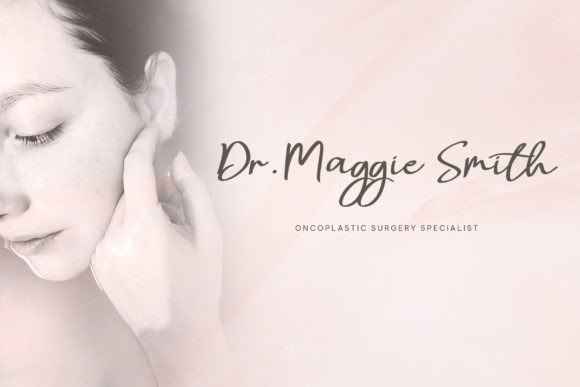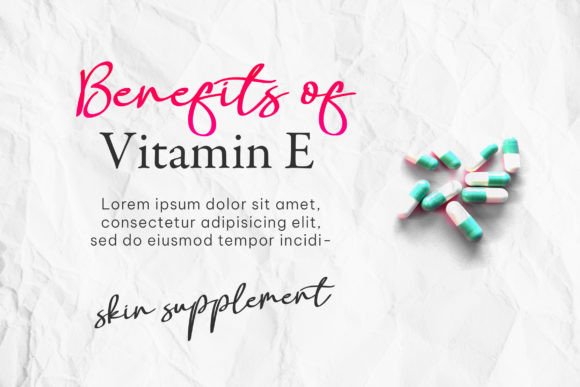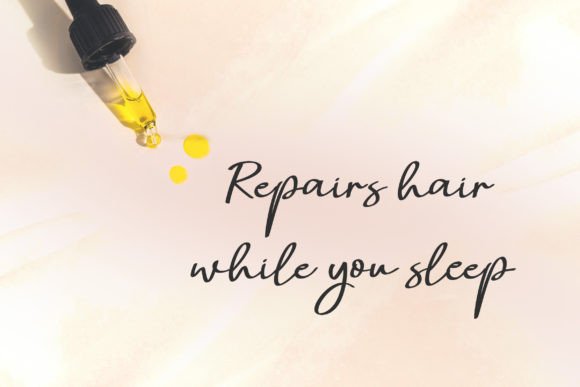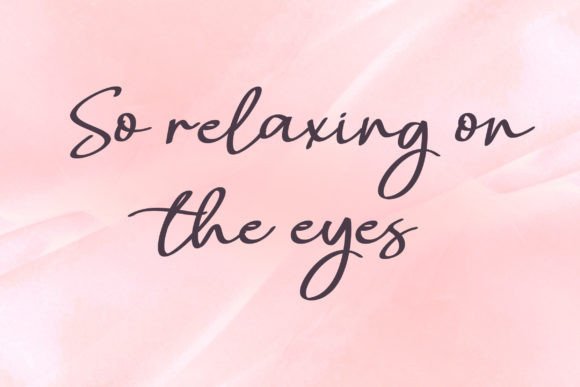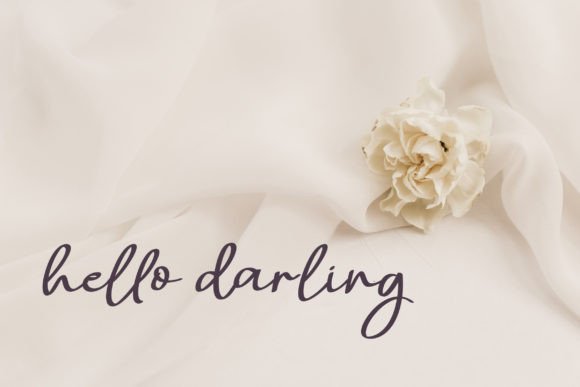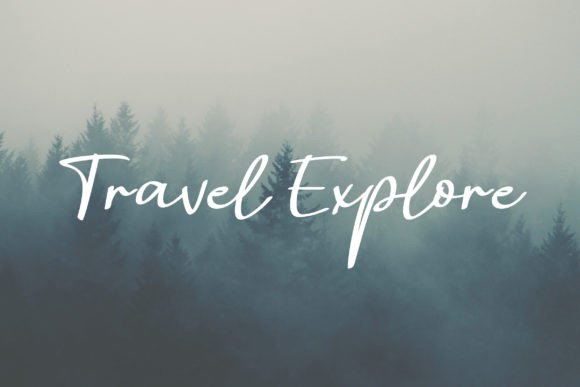
Discover the Timeless Charm of the Baby Smooth Font
Have you ever stumbled upon a design that sparks inspiration and sets your creative juices flowing? For many of us, it’s the perfect combination of style, elegance, and a dash of personality. One such design element that has captured the hearts of many is the Baby Smooth Font – a stunning, modern, and flowing handwritten script font that exudes sophistication and charm.
As a versatile font, Baby Smooth Font is designed to elevate a wide range of designs, from elegant invitations to modern logos and branding materials. Its beautiful and well-balanced characters make it an ideal choice for designers seeking to add a touch of uniqueness to their projects.
Whether you’re a seasoned designer or just starting out, the Baby Smooth Font is an invaluable asset to have in your creative toolkit. Its timeless style and versatility make it an excellent choice for any design project, ensuring that your creations stand out from the crowd and leave a lasting impression.
Baby Smooth Font Key Features
- Unique Characteristics: Features a smooth, rounded design with subtle curves and a friendly, approachable feel
Designer Review: Baby Smooth Font
First off, I’d say that the Baby Smooth Font has a unique charm to it ✨. The rounded edges and soft curves give it a friendly, approachable feel that’s perfect for kids’ brands or family-friendly products. It’s also surprisingly versatile, and I’ve seen it work well in both digital and print applications.
One of the things I appreciate about Baby Smooth is its legibility ✨. The font is clear and easy to read, even at small sizes, which is a must for any font intended for body text. The x-height is also well-balanced, making it easy on the eyes.
However, there are a few limitations to the Baby Smooth Font that I’d like to mention ⚠️.
- Lack of bold weights: While the regular weight is great for body text, it can be a bit too light for headings.
- No italics: This can make it difficult to create emphasis or add a touch of elegance to text.
- Not ideal for complex text: Due to its rounded edges, Baby Smooth can struggle with complex text layouts or dense paragraphs.
Overall, I think the Baby Smooth Font is a solid choice for designers who want a friendly, approachable font for kids’ brands or family-friendly products. While it may not be the best choice for complex text or high-end applications, it’s a great option for simpler designs where you want to convey a sense of warmth and approachability.
The Baby Smooth Font is ideal for creating a soft, elegant look in designs such as:
– Wedding invitations
– Baby announcements
– Children’s book covers
– Branding materials for family-friendly businesses
– Social media graphics with a playful touch
Alternatives to Baby Smooth Font
Compared to Baby Smooth Font, Pacifico has a more refined and luxurious feel, making it suitable for high-end brands and designs. However, Baby Smooth Font has a more rounded and playful feel, making it more suitable for casual and creative projects.
Compared to Baby Smooth Font, Great Vibes has a more modern and edgy feel, making it suitable for younger and trendier brands and designs. However, Baby Smooth Font has a more classic and timeless feel, making it more suitable for traditional and conservative projects.